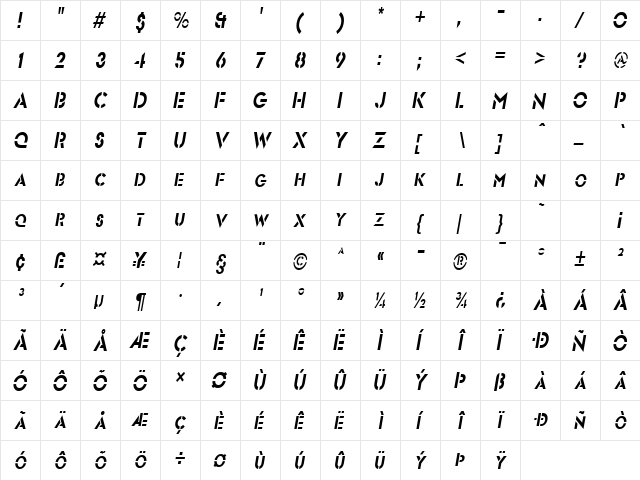
Stencil Sans-Condensed Italic
Design Context for Stencil Sans-Condensed Typeface
Stencil Sans-Condensed borrows the utilitarian aesthetic of stencil lettering, with its characteristic cutaways and no-frills construction lending an industrial edge. The slanted form adds forward momentum and visual energy.
Ideal for industrial branding, streetwear, military-adjacent aesthetics, and urban signage projects.
Pro Tip: Pair Stencil Sans-Condensed with raw, utilitarian design elements — exposed concrete textures, flat colour, and minimal ornamentation suit it well.